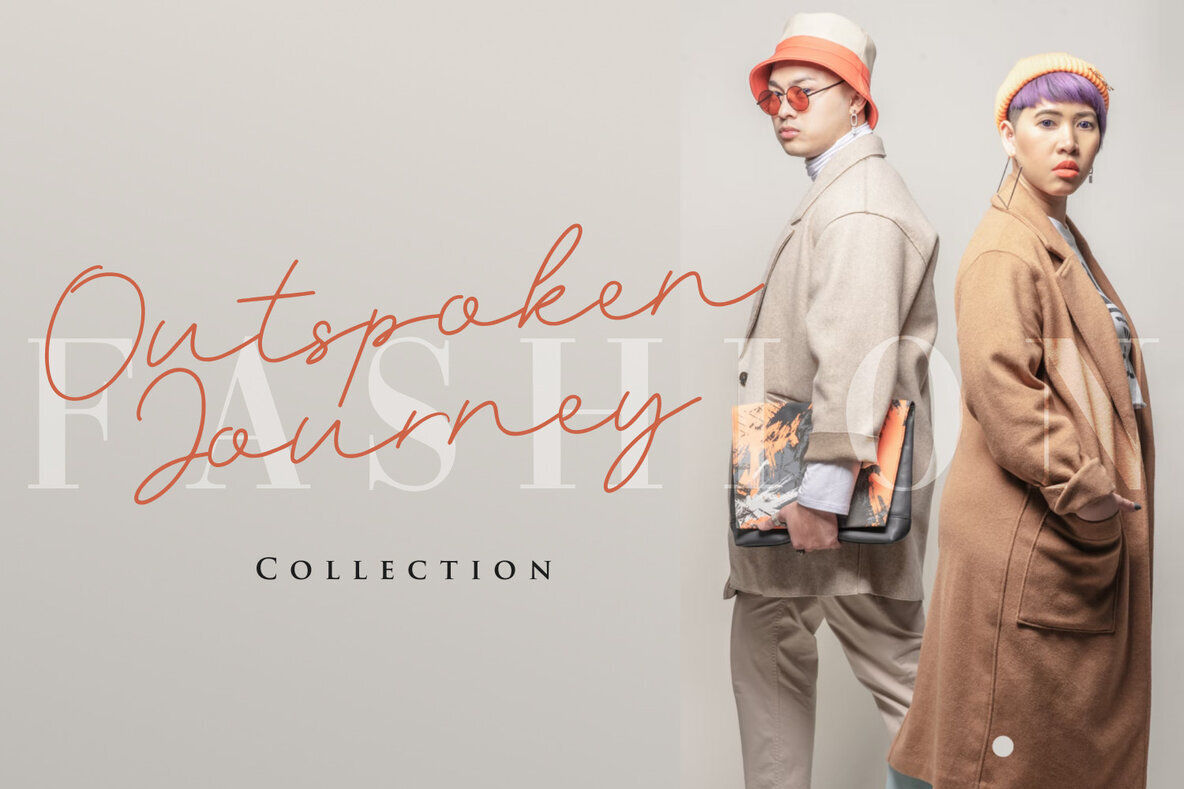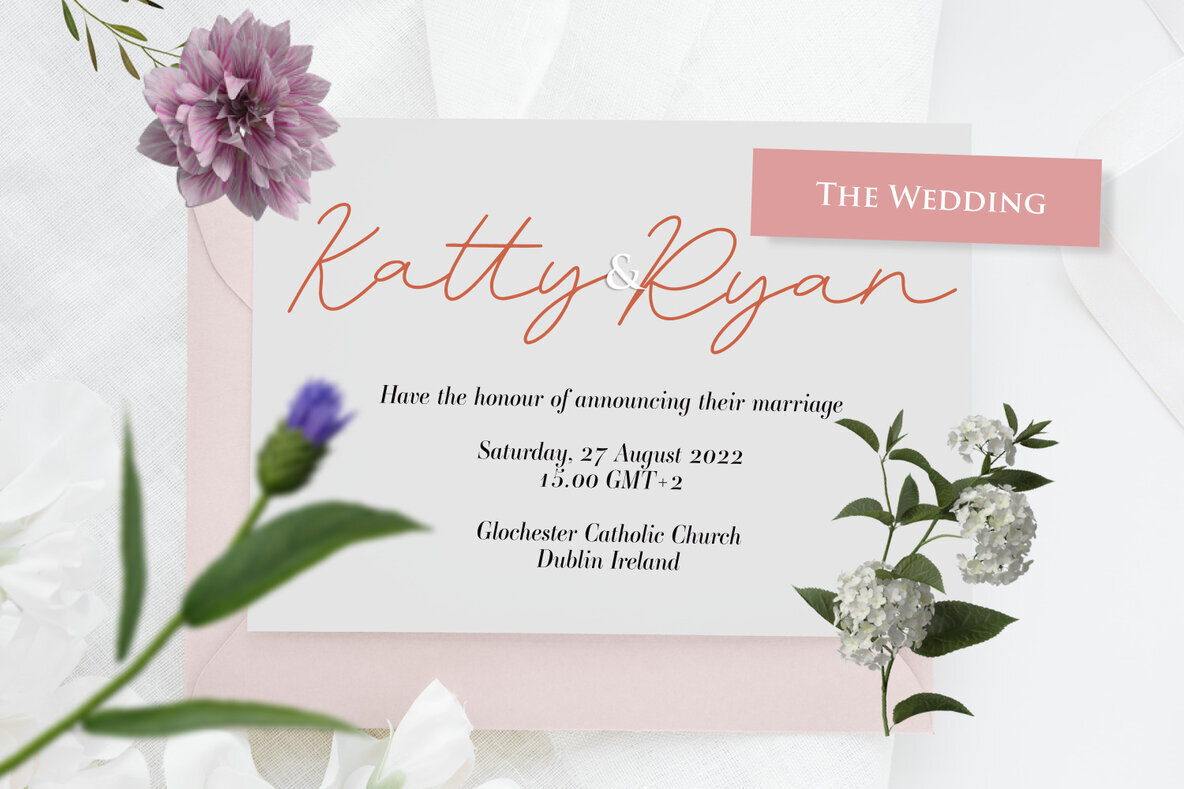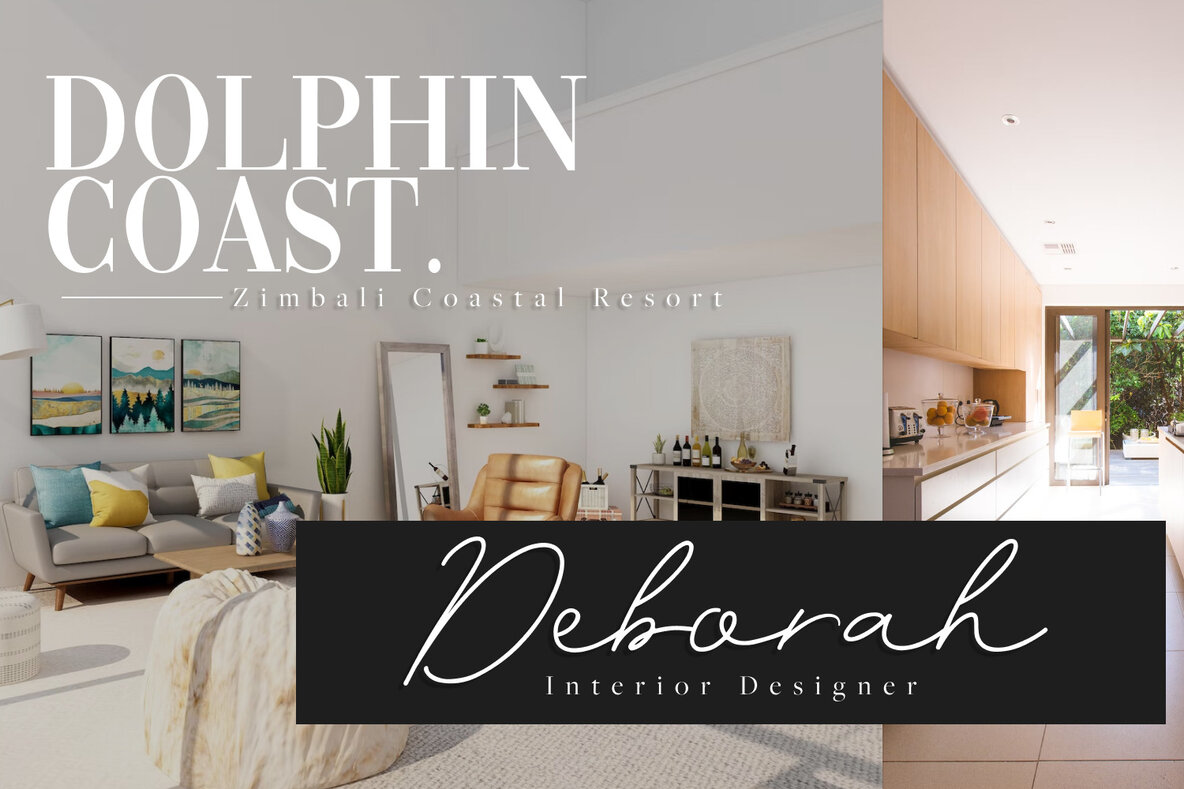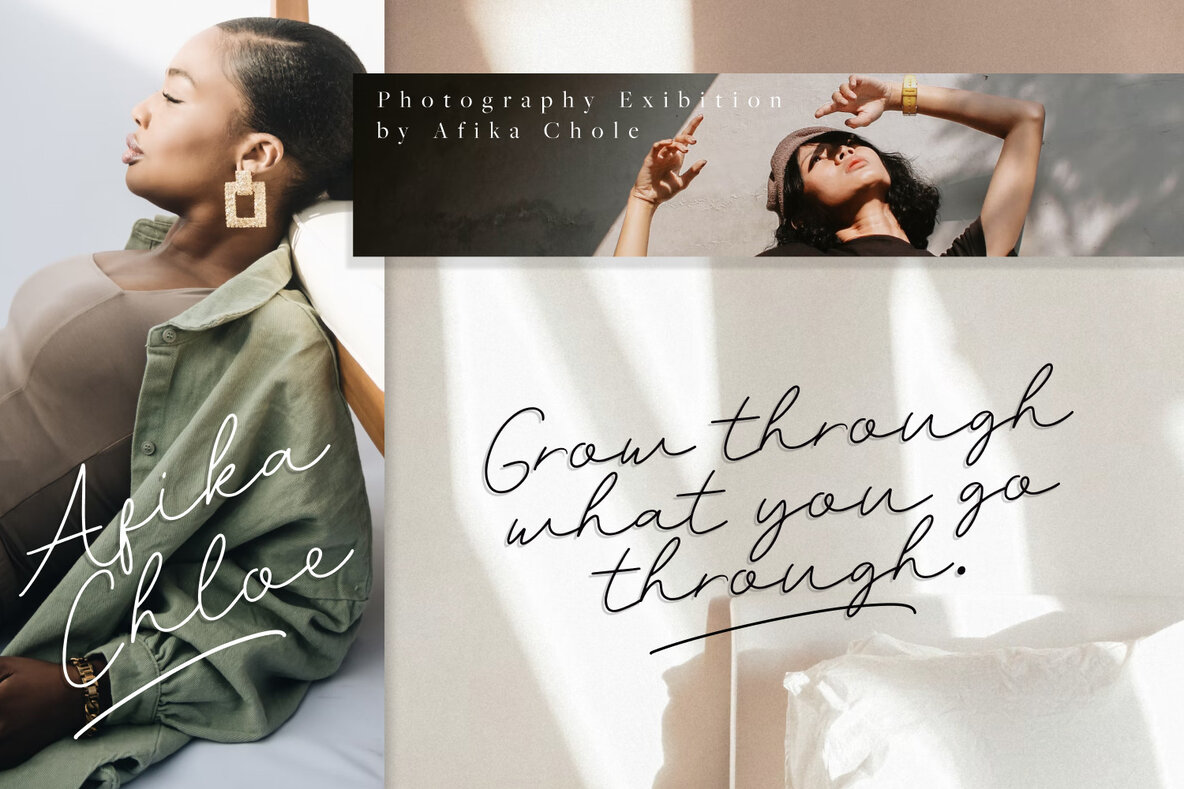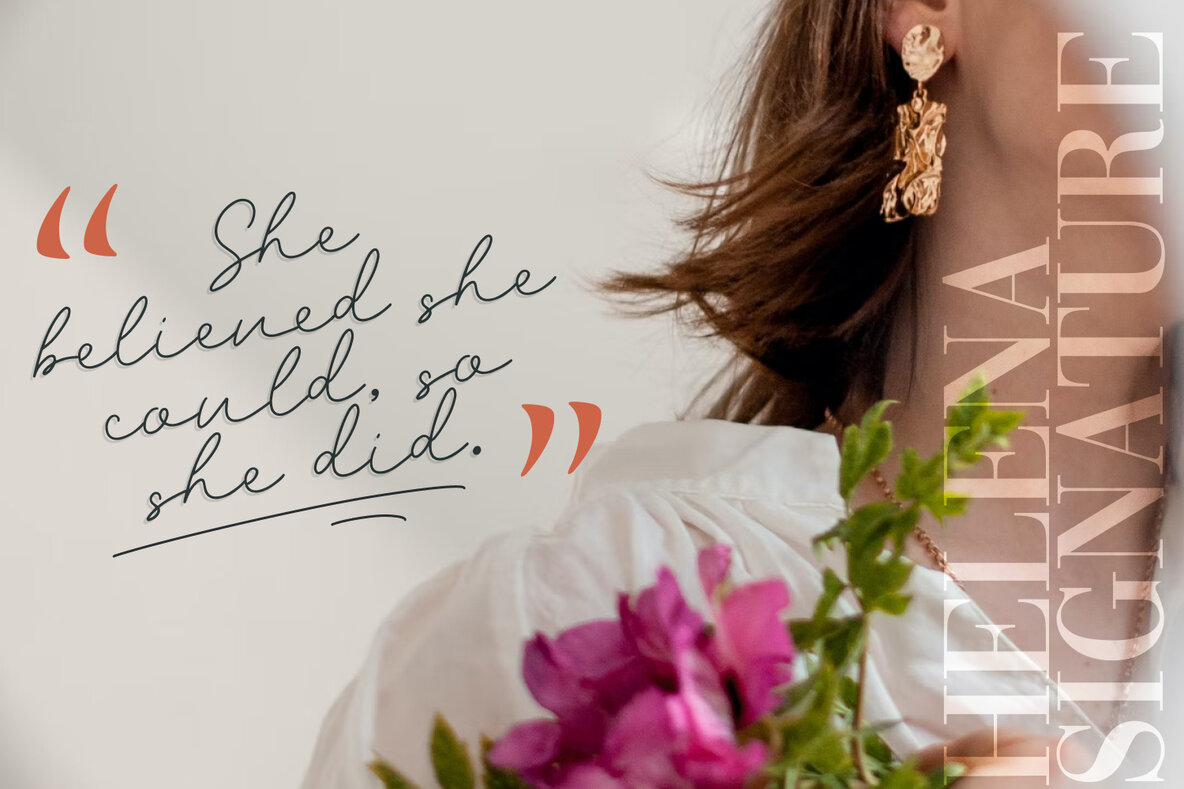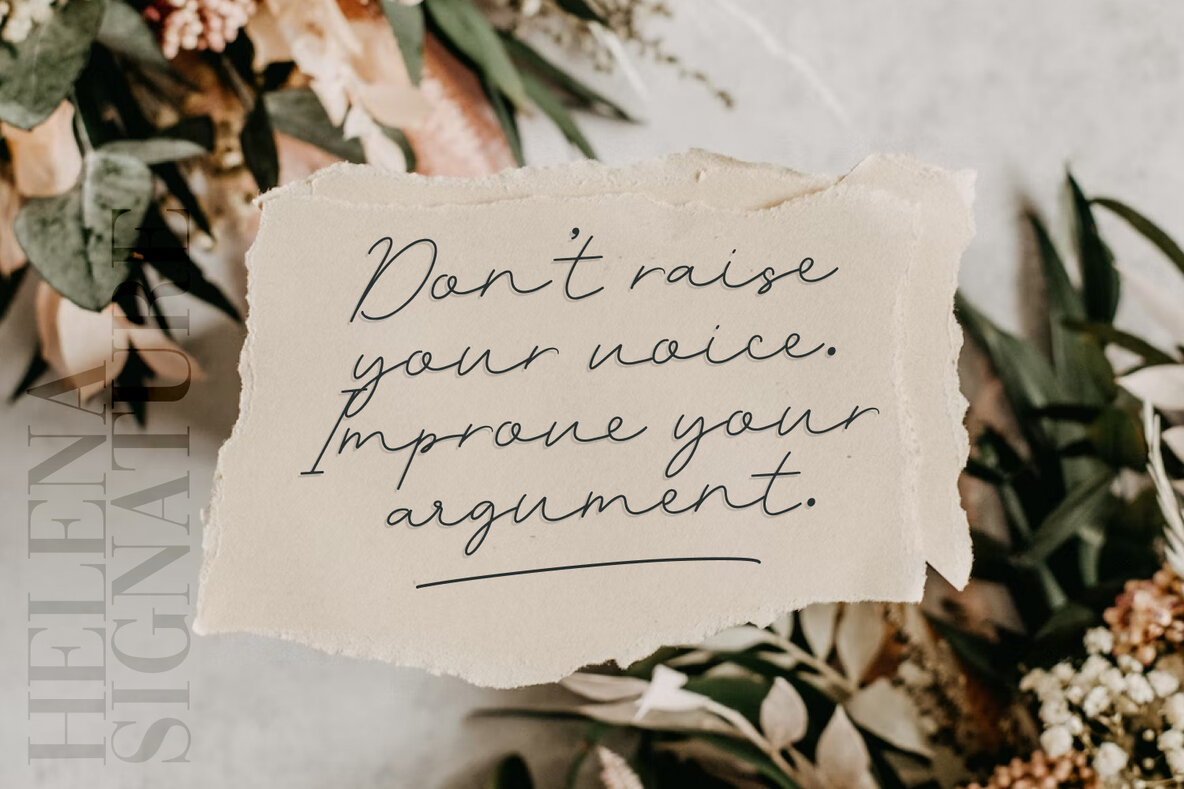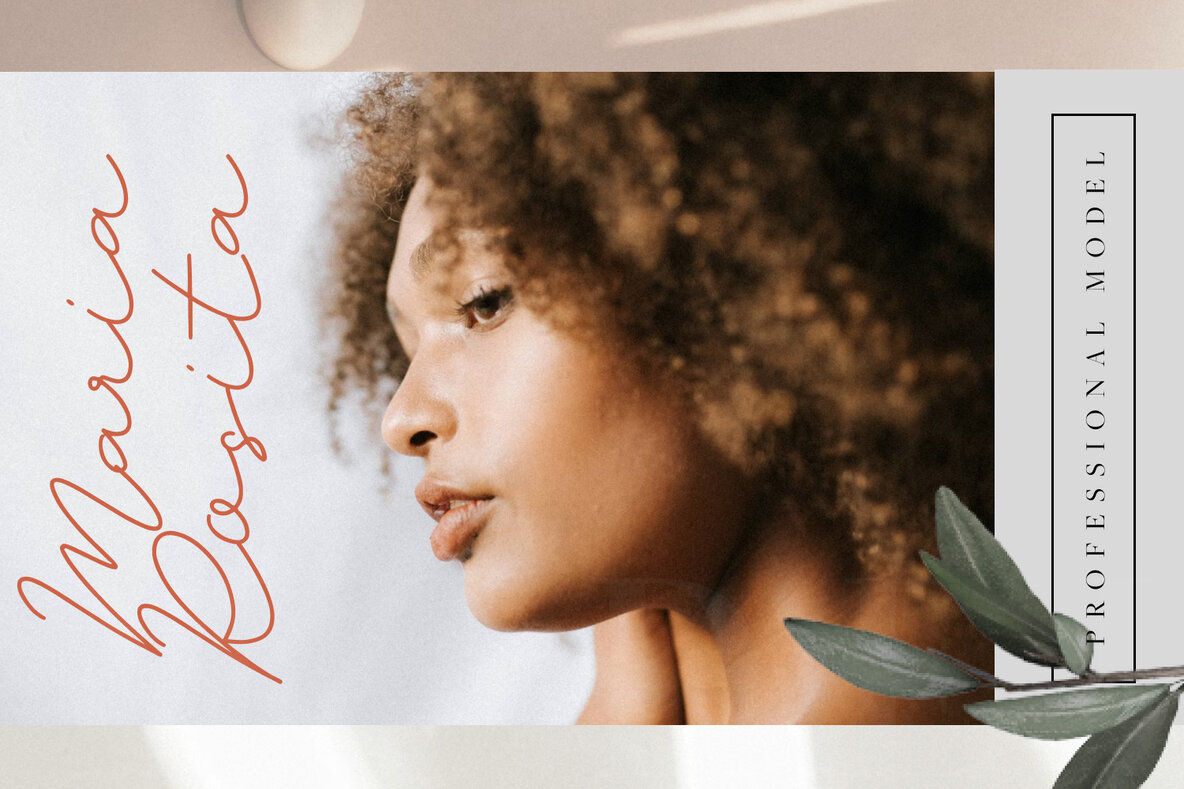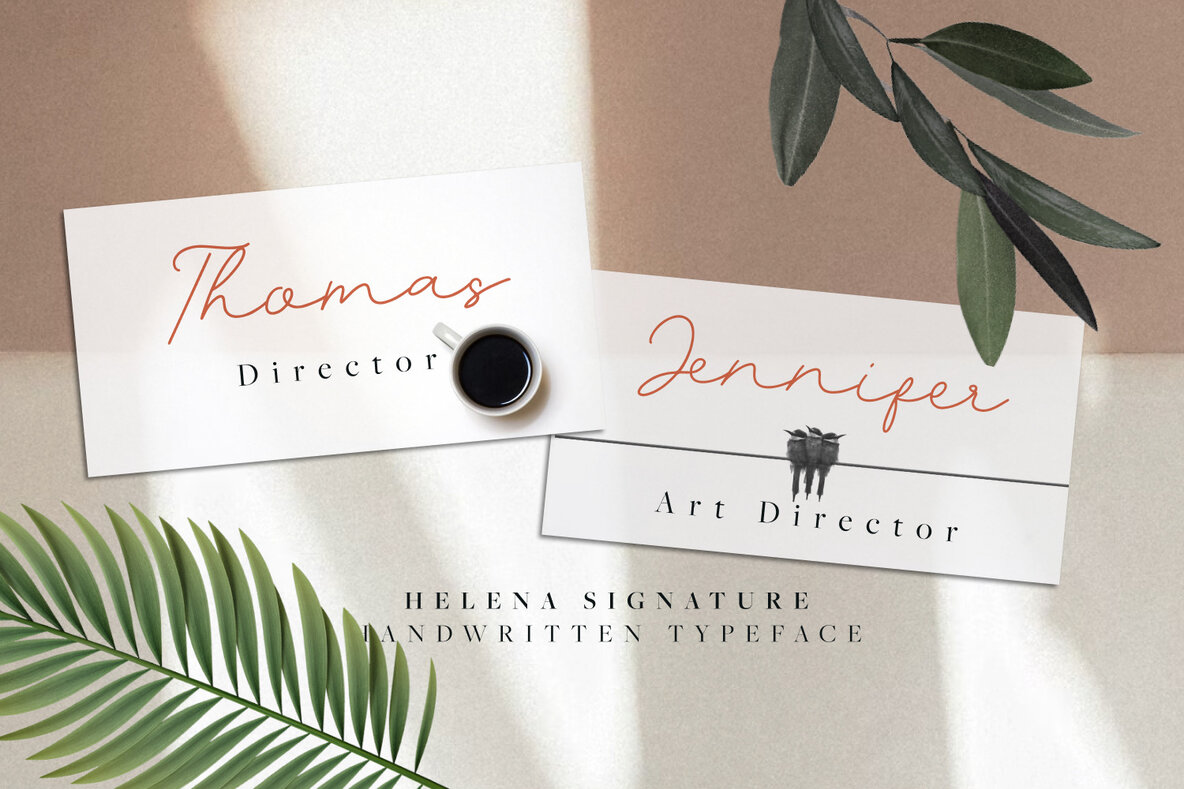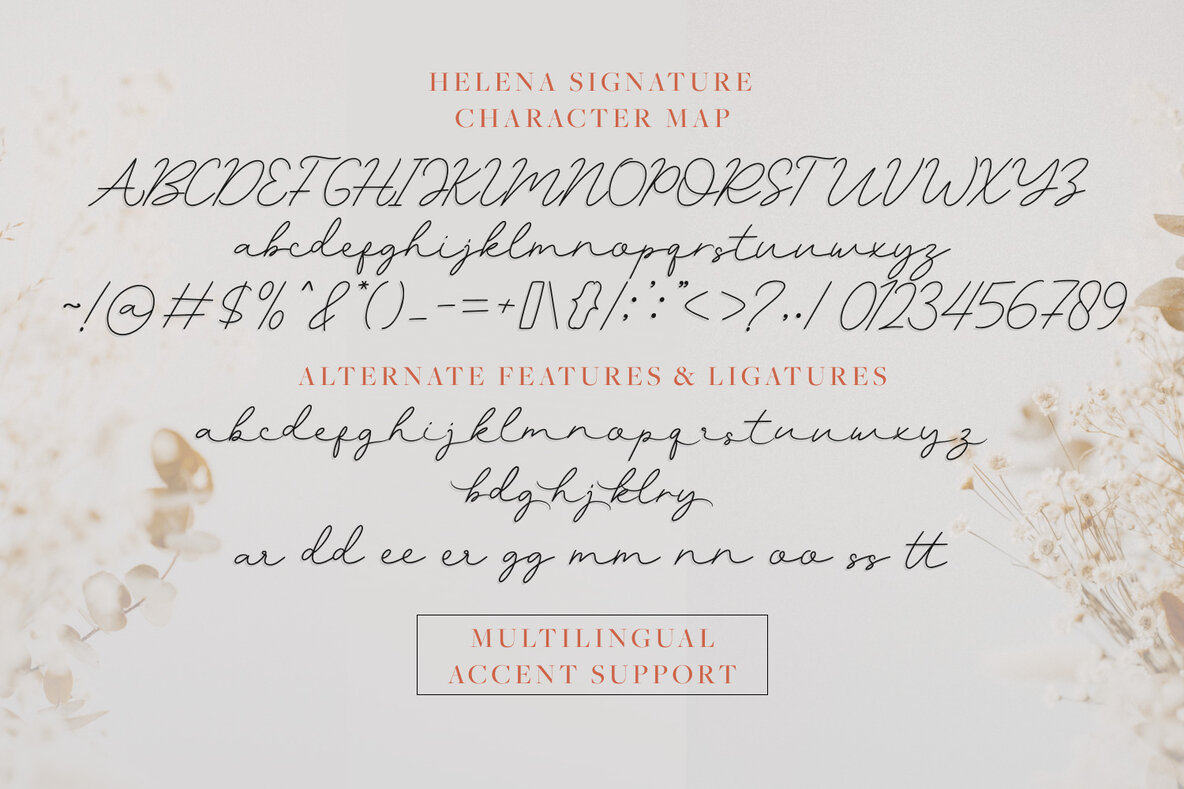
Helena Signature Font
With its distinctive flair and graceful charm, Helena Signature by Pixesia Studio stands as a unique asset in the realm of typography. Designed to cater to various creative needs, this typeface combines a whimsical and opulent style that fulfills diverse occasions. Its handwriting aesthetic does more than present authenticity; it imparts a sense of intimacy, drawing readers into a familiar and personal narrative. The striking beauty of Helena Signature not only captivates but also encourages a deeper engagement with any message it conveys.Helena Signature: A Distinctive Handwriting Typeface
Pixesia Studio is a Palu-based type foundry known for its broad, concept-driven catalog of fonts that span everything from retro display styles to elegant serifs and festive scripts. Established in 2020 in Central Sulawesi, Indonesia, Pixesia quickly built a reputation for delivering eye-catching, commercially...